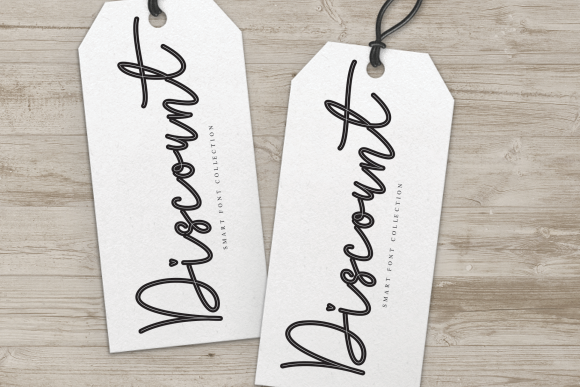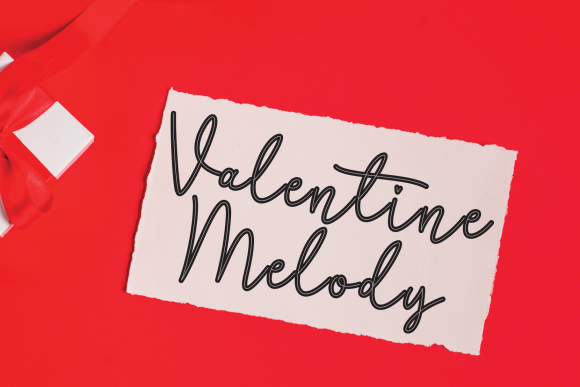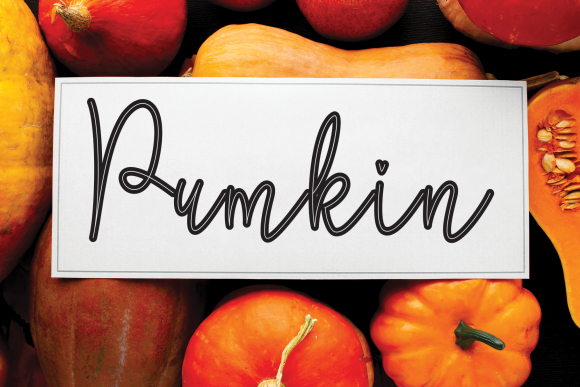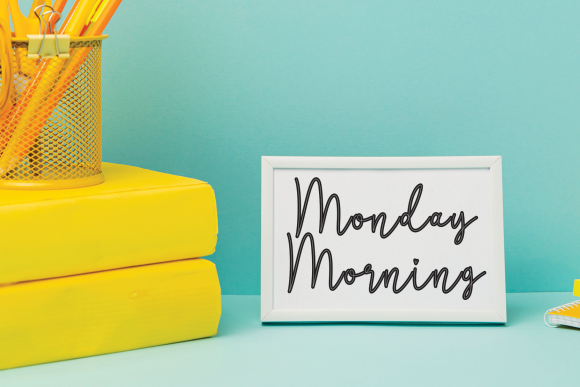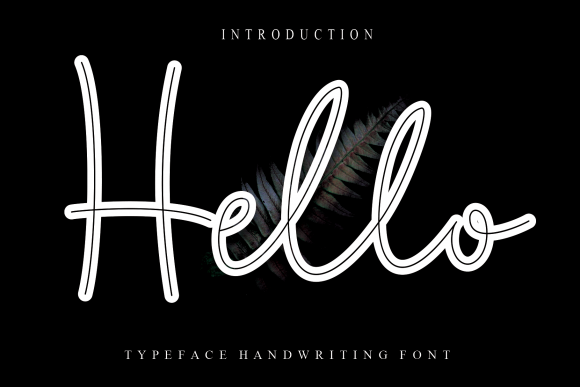
Hello Font: The Sweet and Delicate Handwritten Font for Romantic Designs
Are you looking for a font that can add a touch of romance and elegance to your designs? Look no further than Hello Font! This sweet and delicate handwritten font is perfect for creating beautiful wedding invitations, cards, and other designs that require a personal and loving touch.
What Makes Hello Font So Special?
Hello Font is a dainty and joyful font that is sure to capture the hearts of designers and crafters alike. Its delicate and handwritten style makes it ideal for creating romantic and personalized designs that will leave a lasting impression. Whether you’re designing wedding invitations, greeting cards, or other special occasion designs, Hello Font is the perfect choice.
Characteristics of Hello Font
Hello Font has several characteristics that make it stand out from other fonts. Some of its key features include:
- Handwritten style: Hello Font has a beautiful, handwritten style that gives it a personal and unique touch.
- Delicate and dainty: The font is delicate and dainty, making it perfect for creating romantic and elegant designs.
- Joyful and playful: Despite its delicate nature, Hello Font has a joyful and playful feel that makes it perfect for creating designs that are both romantic and fun.
Uses for Hello Font
Hello Font is a versatile font that can be used for a variety of design projects. Some of the most popular uses for Hello Font include:
- Wedding invitations: Hello Font is perfect for creating beautiful and romantic wedding invitations that will set the tone for the big day.
- Greeting cards: The font is also great for creating greeting cards for special occasions, such as Valentine’s Day, anniversaries, and birthdays.
- Stationery and gift tags: Hello Font can be used to create beautiful stationery and gift tags that add a personal touch to any gift.
- Social media graphics: The font can also be used to create social media graphics, such as Instagram posts and Facebook graphics, that are both romantic and eye-catching.
Tips for Using Hello Font
Here are a few tips for using Hello Font in your designs:
- Pair it with other fonts: Hello Font can be paired with other fonts to create a unique and interesting design. Try pairing it with a bold font for a beautiful contrast.
- Use it in combination with images: The font looks great in combination with images, such as watercolor illustrations or photographs. Try using it to add a caption to a romantic image.
- Experiment with colors: Hello Font looks great in a variety of colors, from soft pastels to bold and bright colors. Experiment with different colors to find the one that works best for your design.
Hello Font is a beautiful and delicate handwritten font that is perfect for creating romantic and personalized designs. Its dainty and joyful style makes it ideal for wedding invitations, greeting cards, and other special occasion designs. With its versatility and ease of use, Hello Font is a must-have font for designers and crafters alike.